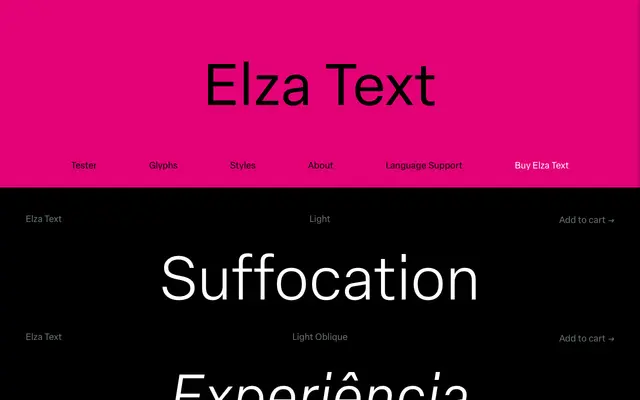
Elza Text
A deliberately neutral neo-grotesque text face by Daniel Sabino, designed to extrapolate the systematisation of Helvetica and Univers toward near-mechanical consistency.
Elza Text is the text-optimised optical size of the broader Elza family, which spans three widths and 58 fonts in total. Curves on round letters incorporate small straight segments to unify normal and condensed widths, producing a squarish, rational appearance more mechanised than Helvetica itself. The family ships in five weights with oblique companions rather than true italics, a variable font with weight, slant and width axes, and around 900 glyphs per style including small caps and old-style figures.
Explicitly modelled on Helvetica and Univers, with mechanised square curves and near-total suppression of humanist detail, placing it squarely in the neo-grotesque tradition.